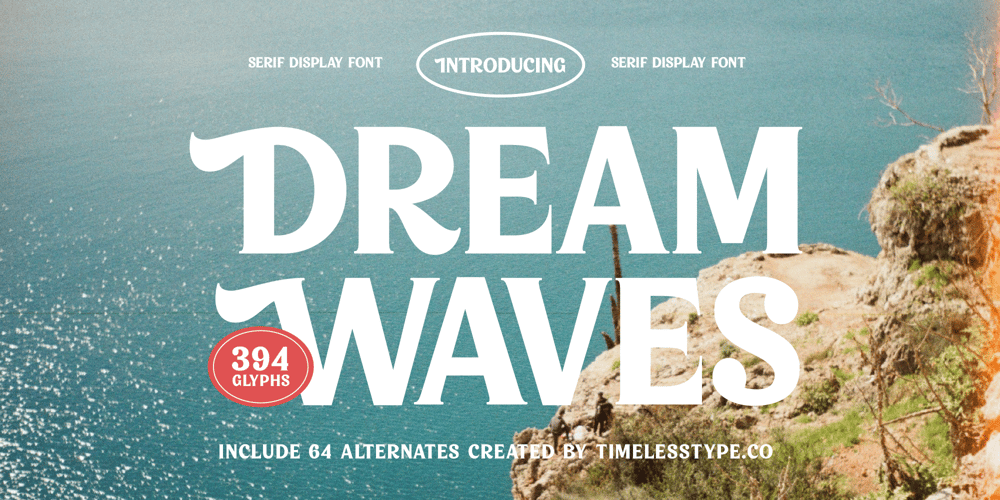
Dream Waves
Dream Waves font
Dream Waves Font Family was designed by Heru Utama Putra and published by Timelesstype Studio. Dream Waves contains 2 styles and family package options. Dream Waves – Serif Display Font , from Timelesstype., Suitable for any projects such as: logos, branding projects, homeware designs, product packaging, mugs, quotes, posters, shopping bags, t-shirts, book covers, name card, invitation cards, greeting cards, label, photography, watermark, special events, and all your other luxury and beautiful projects that need a Luxury Serif taste.